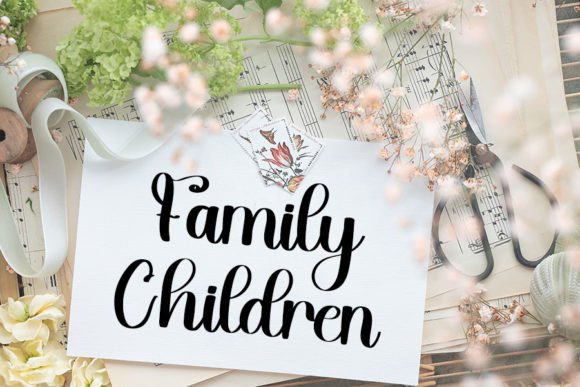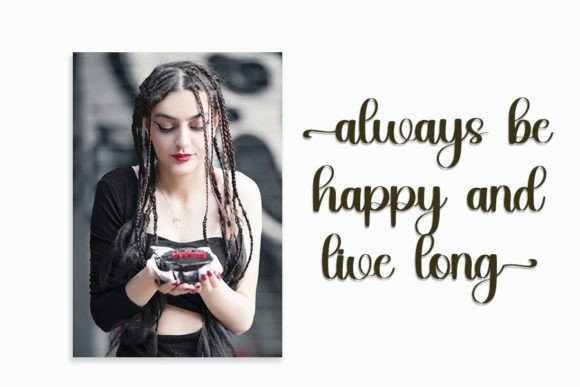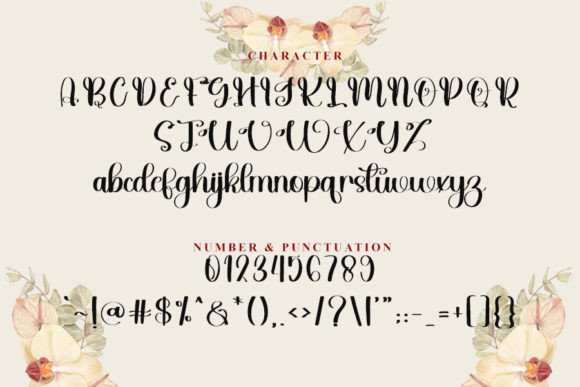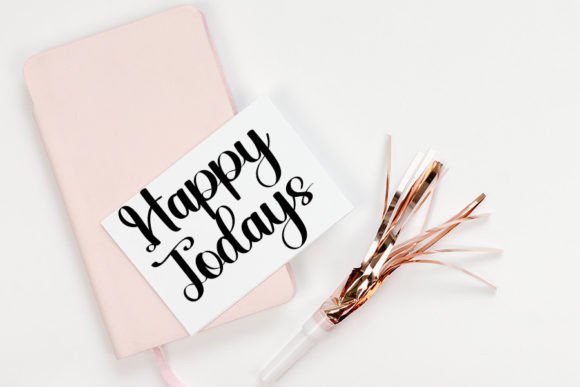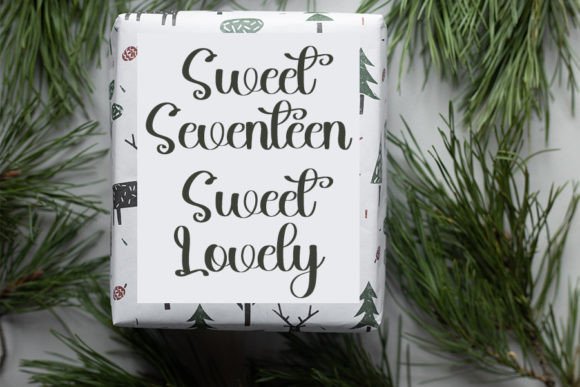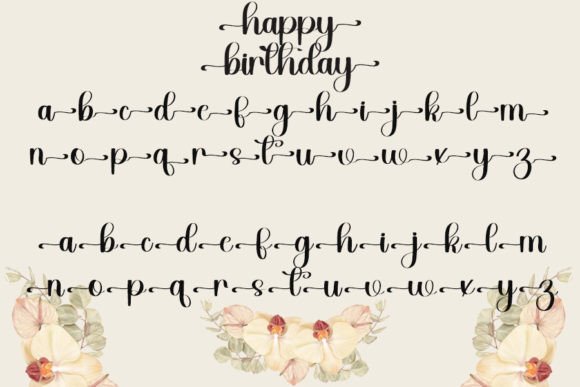
Introducing Happy Birthday Font: The Ultimate Script Font for Elegant Designs
Are you looking for a font that exudes elegance and sophistication? Look no further than the Happy Birthday font! This casual and elegant script font is perfect for designers and crafters who want to add a touch of luxury to their designs. With its incredibly versatile style, you can use it to create a wide range of projects, from gorgeous wedding invitations to beautiful stationery art and eye-catching social media posts.
What Makes Happy Birthday Font So Special?
The Happy Birthday font is a standout in the world of typography, and for good reason. Its unique blend of casual and elegant styles makes it perfect for a variety of design projects. Here are just a few reasons why you’ll fall in love with this font:
- Versatility: The Happy Birthday font is incredibly versatile, making it perfect for a wide range of design projects. Whether you’re creating wedding invitations, social media posts, or stationery art, this font is sure to impress.
- Elegant Style: With its elegant script style, the Happy Birthday font is perfect for designers who want to add a touch of sophistication to their designs.
Uses for Happy Birthday Font
The Happy Birthday font is perfect for a wide range of design projects, including:
- Wedding Invitations: Create gorgeous wedding invitations that will set the tone for the big day. The Happy Birthday font is perfect for formal and informal wedding invitations alike.
- Stationery Art: Add a touch of elegance to your stationery art with the Happy Birthday font. Perfect for creating beautiful greeting cards, gift tags, and more.
- Social Media Posts: Make your social media posts stand out with the Happy Birthday font. Perfect for creating eye-catching graphics and announcements.
- DIY Crafts: The Happy Birthday font is also perfect for DIY crafters who want to add a personal touch to their projects. Use it to create custom signs, banners, and more.
Tips for Using Happy Birthday Font
Here are a few tips for getting the most out of the Happy Birthday font:
- Experiment with Different Sizes: The Happy Birthday font looks great in a variety of sizes, so don’t be afraid to experiment. Try using it for both large and small design projects.
- Pair it with Other Fonts: The Happy Birthday font pairs well with a variety of other fonts, so try experimenting with different combinations. This will help you create unique and interesting designs.
- Use the Swashes: The Happy Birthday font comes with a range of swashes that you can use to add a personal touch to your designs. Don’t be afraid to get creative and experiment with different swashes.